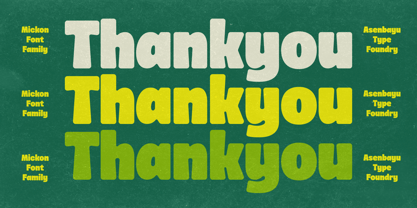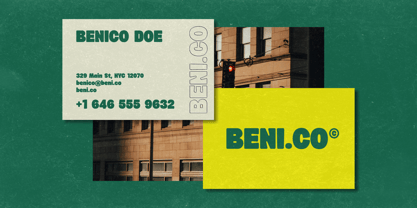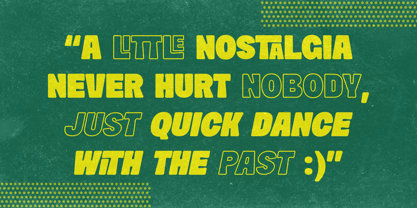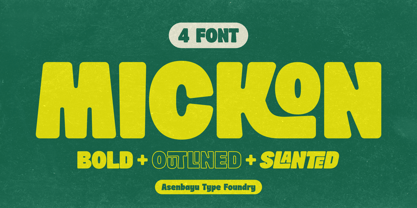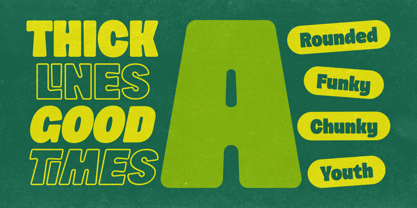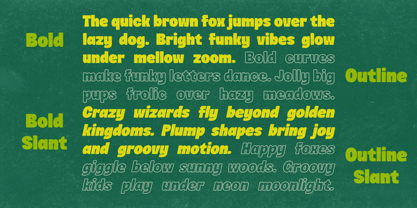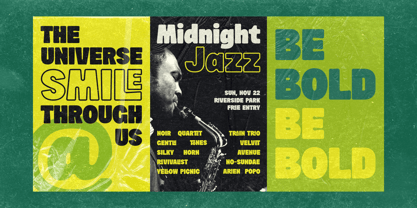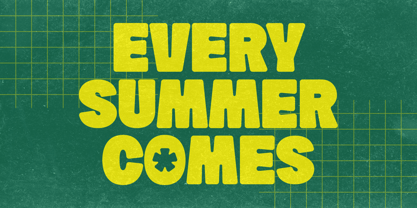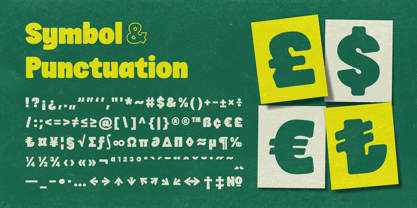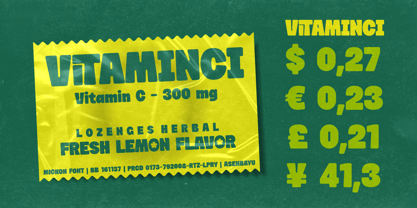
Mickon
by Asenbayu
The Mickon Font Family was designed by Bayu Noor Witarsa and published by Asenbayu. Mickon contains 4 styles and family package options. More about this family
Mickon is a bold and rounded retro display font that radiates youthful nostalgia. Its plump shapes and smooth corners echo the cheerful spirit of vintage design, giving every word a friendly, approachable vibe. Available in Solid, Outline, and Slant styles, Mickon is designed to stand out, perfect for posters, logos, branding, or bold headlines that need a touch of warmth and character. Every letter feels confident yet soft, full of life and personality. Mickon font features: standard glyph, stylistic alternates, stylistic ligatures, symbol, punctuation and multiple languages supported.
Designers: Bayu Noor Witarsa
Foundry: Asenbayu